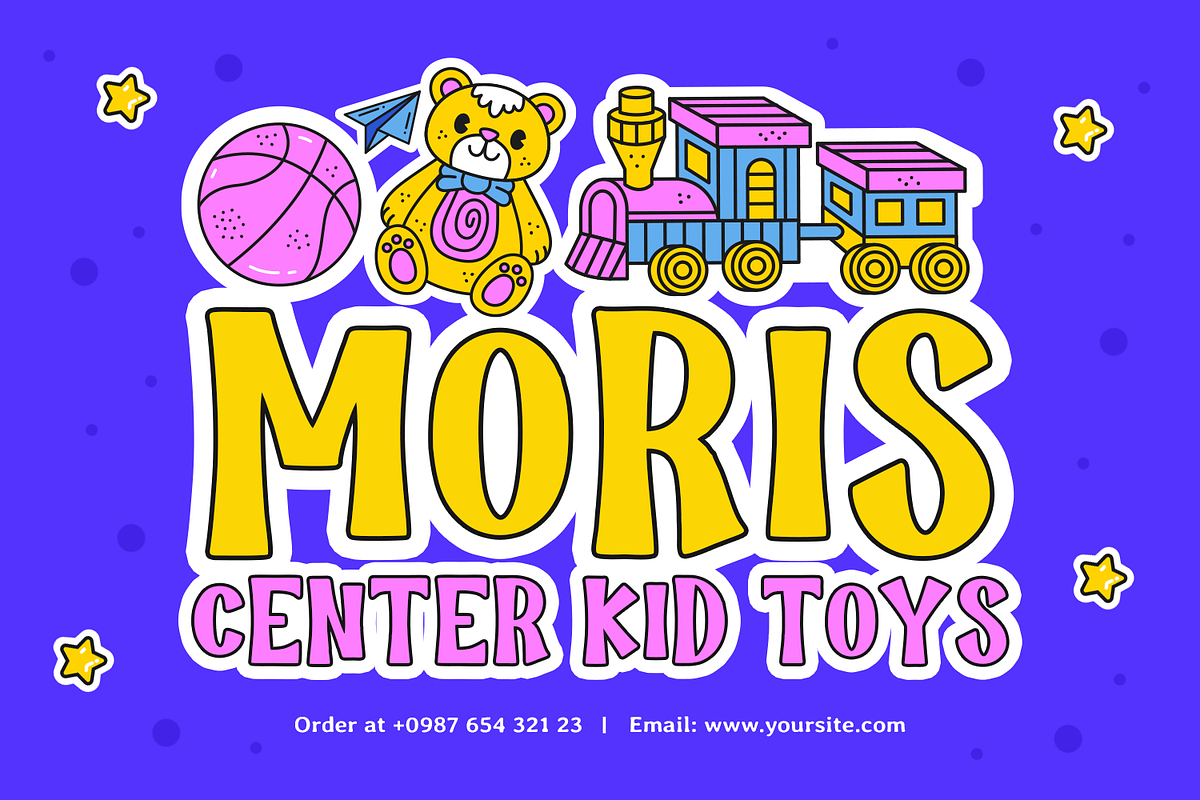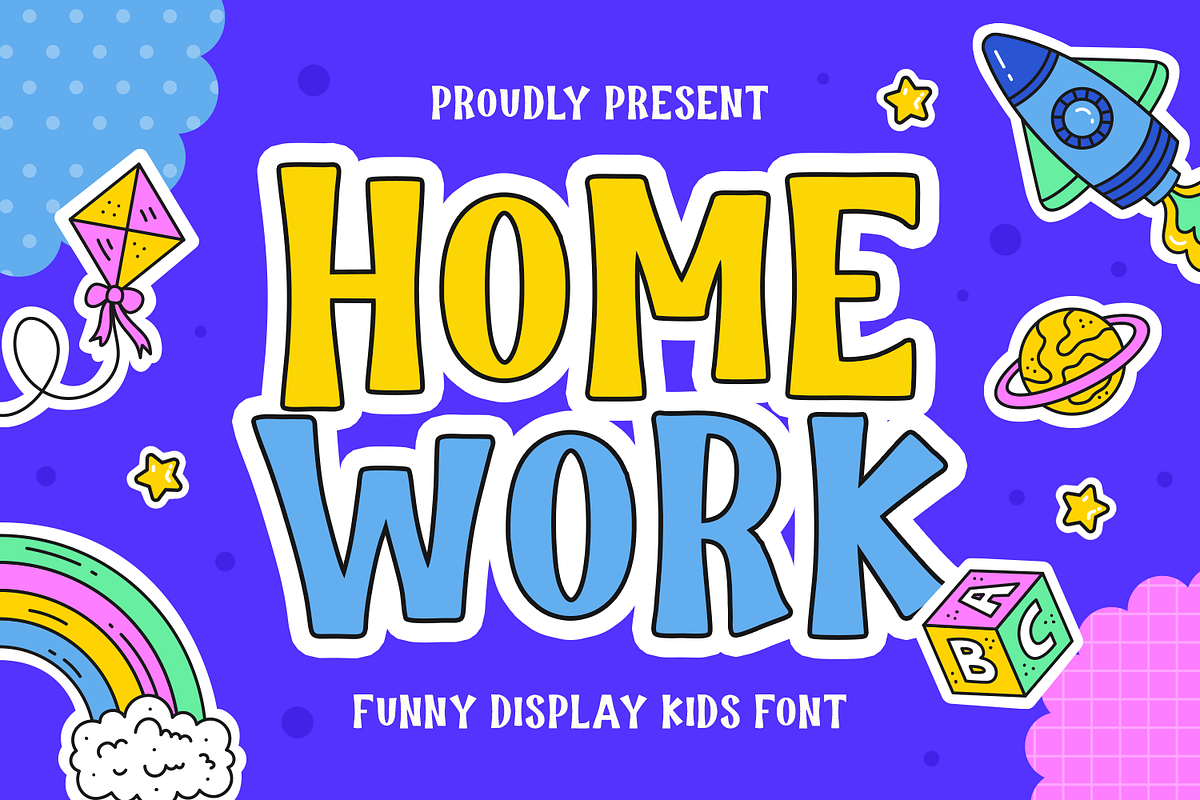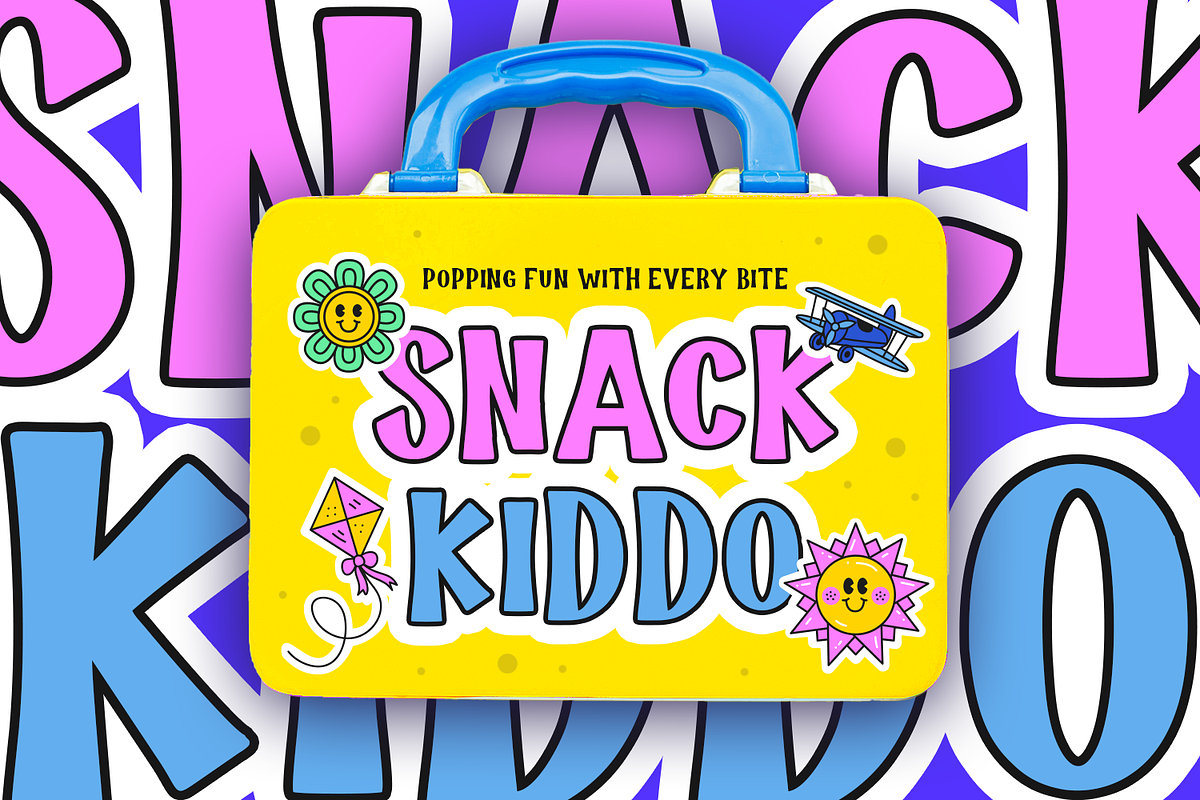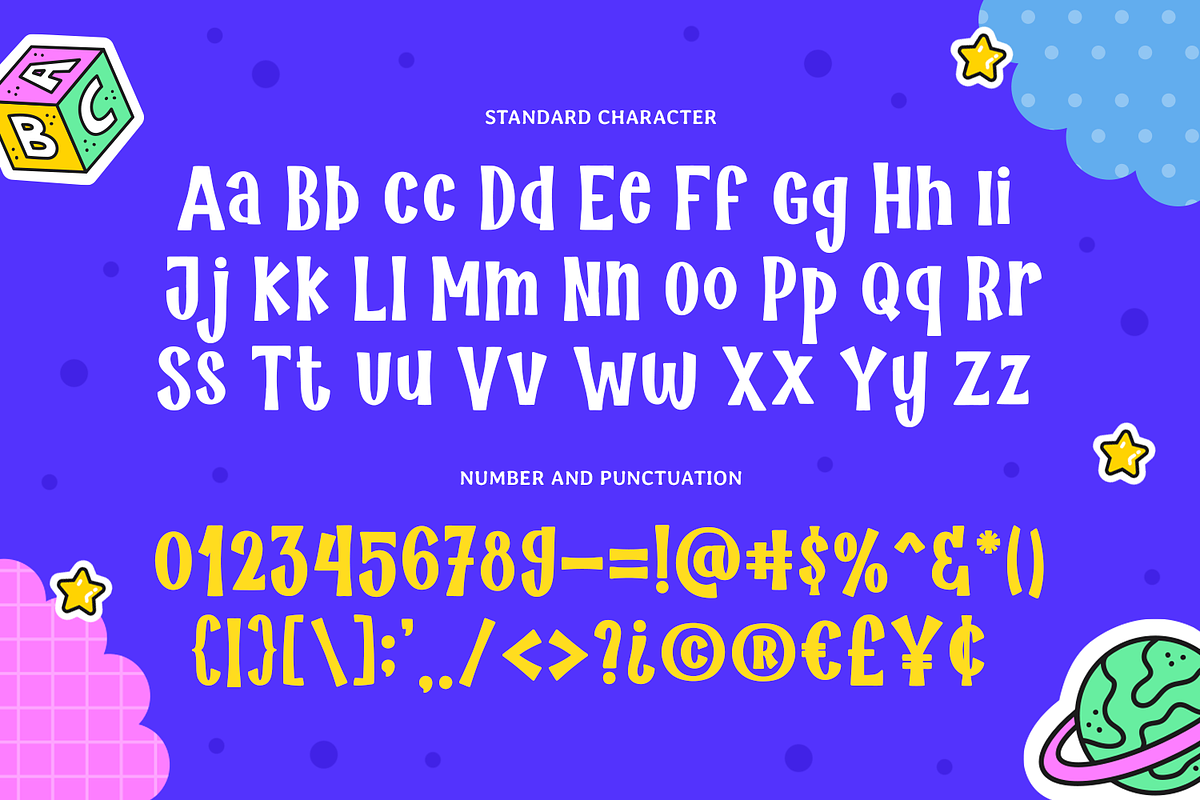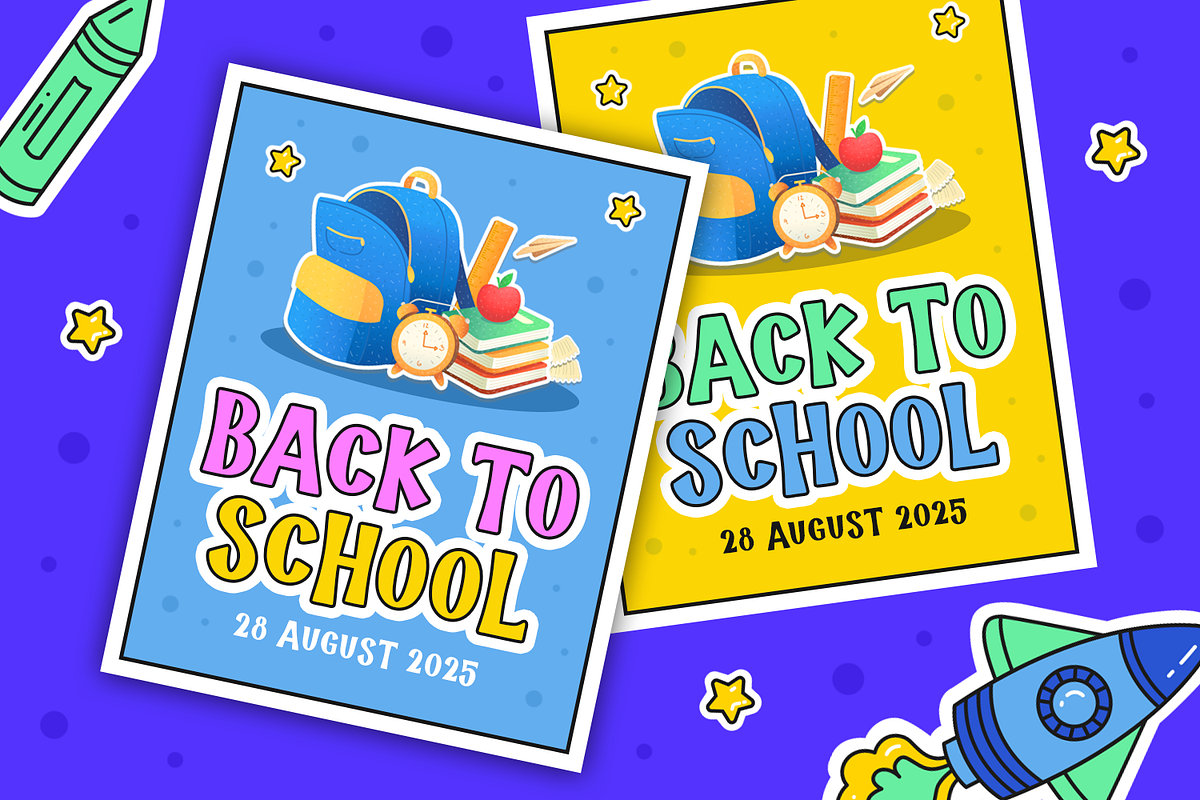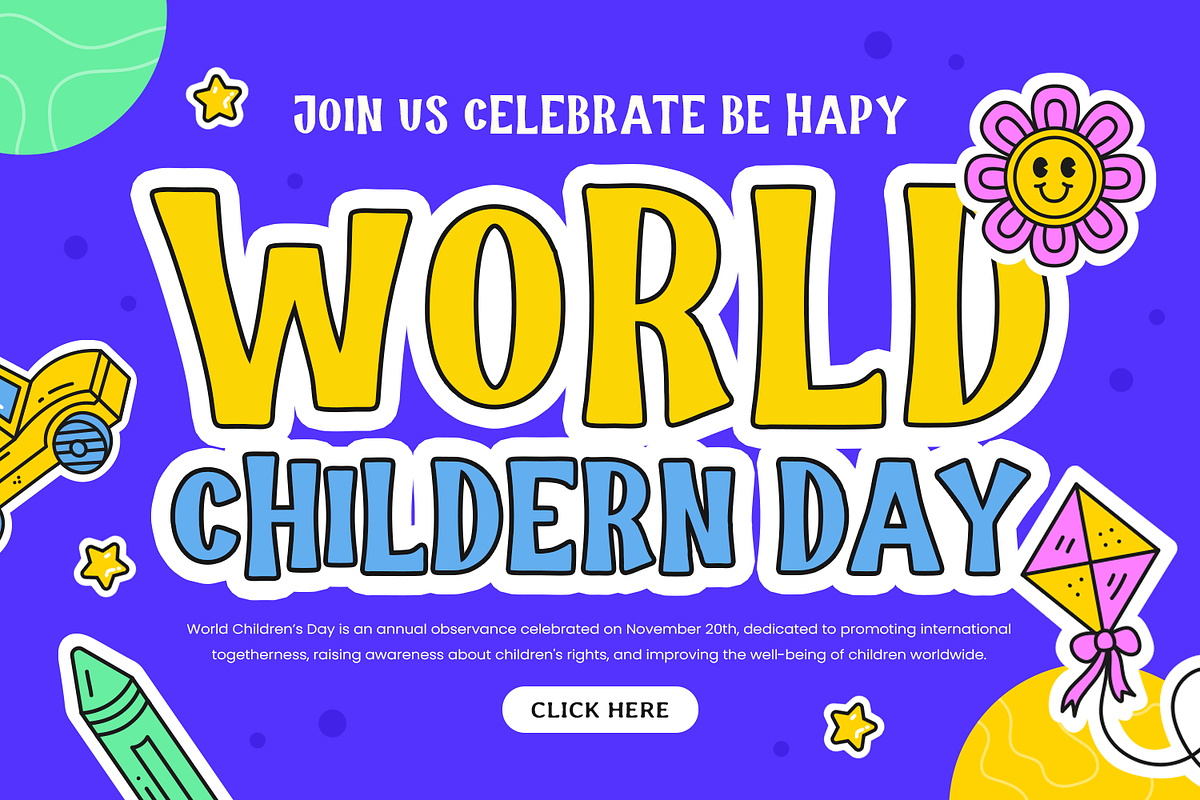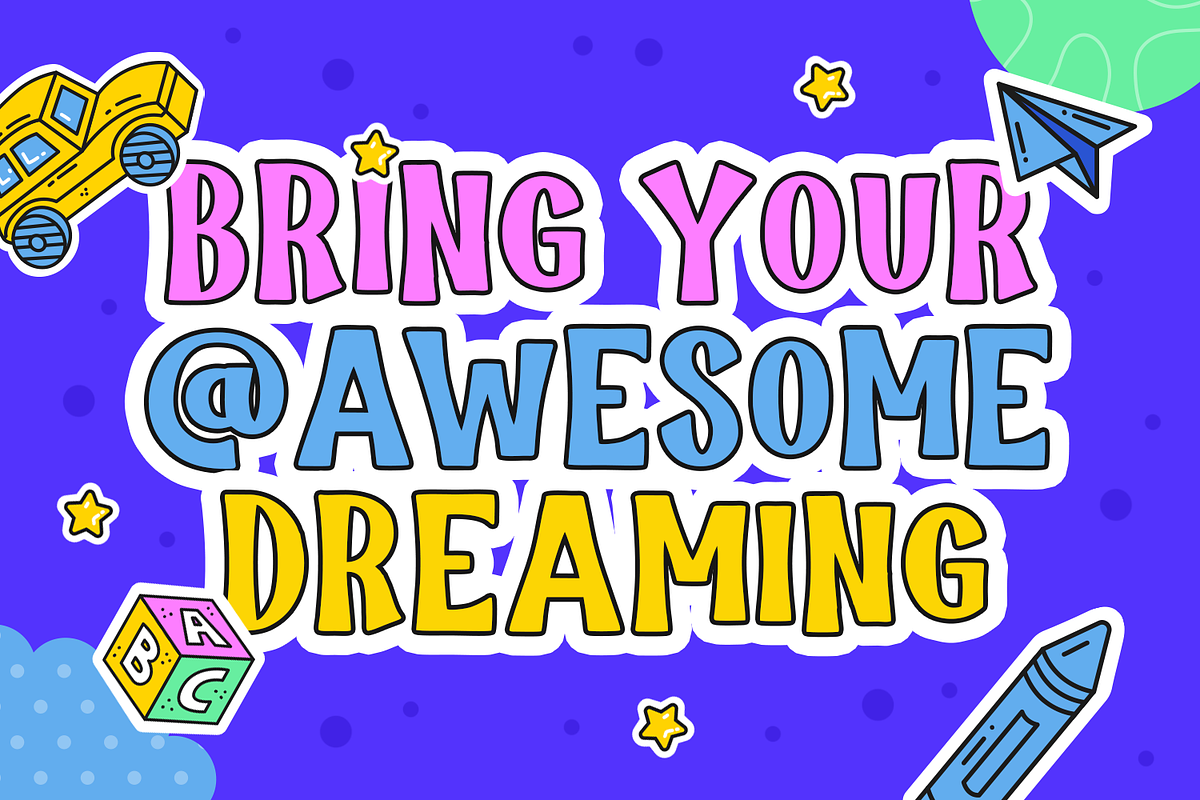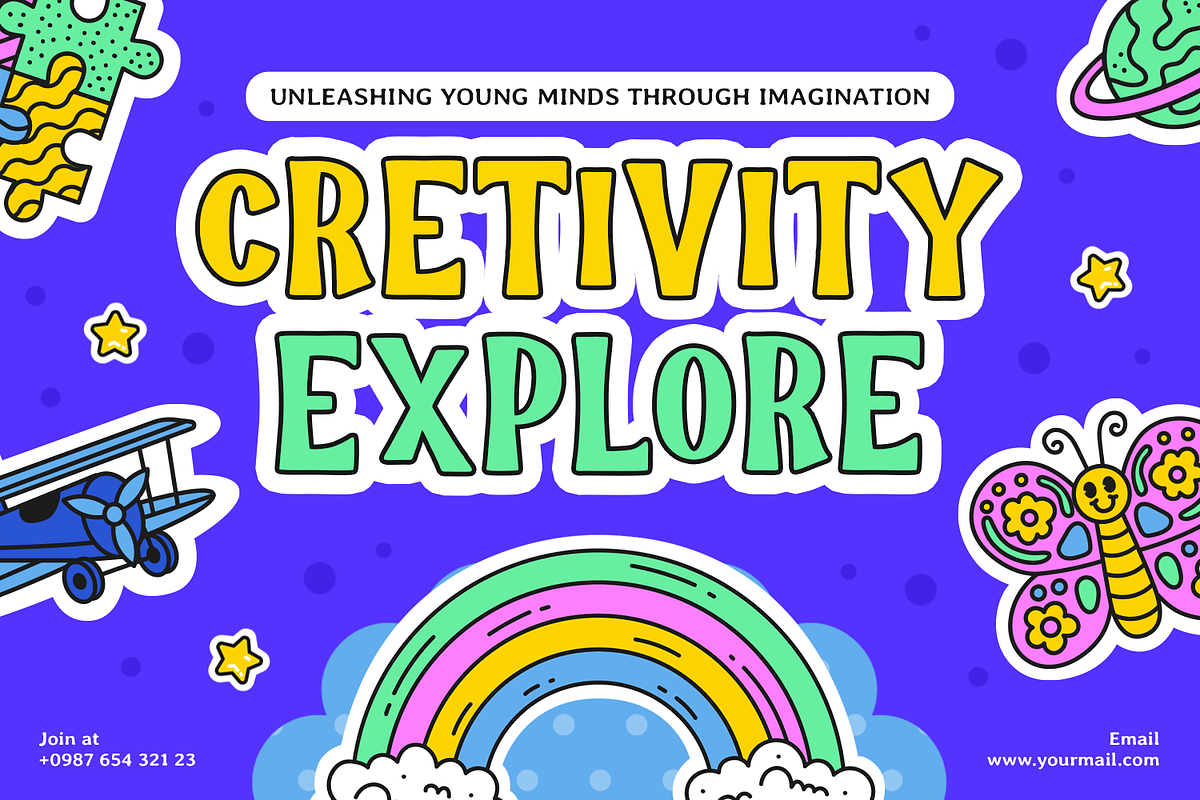
Homework
Homework Font is a lively and decorative typeface designed to capture the joy and energy of childhood. Its bold, playful letters are perfect for creating a sense of fun and wonder, making it an excellent choice for projects related to kids, schools, learning, or even game and toy designs. With quirky shapes and a dynamic structure, Homework Font brings life and personality to every word.
Inspired by the vibrant world of early education and childhood adventures, this font is a visual celebration of imagination. Whether you're designing for kindergarten materials, playful logos, educational content, or esport titles, Homework Font creates a friendly and approachable atmosphere that appeals to children and adults alike. Its unique style blends creativity and clarity, ensuring your message stands out while maintaining readability.
From colorful flashcards and storybooks to game interfaces and branding for toys, Homework Font adapts effortlessly to a wide range of applications. The decorative details and bold strokes make it a standout choice for posters, packaging, or digital banners, adding charm and excitement to every project. It's a font that sparks curiosity and invites interaction, perfect for creating a lasting impression.